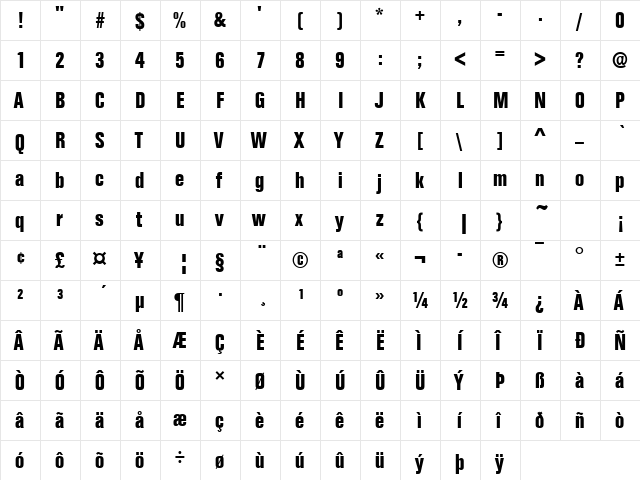
FolioTBolCon Regular Font Preview
FolioTBolCon Regular
FolioTBolCon Regular Font Details
Design Context for FolioTBolCon Typeface
FolioTBolCon takes a measured approach to typography — its balanced proportions and neutral character make it a reliable workhorse for both digital and print work.